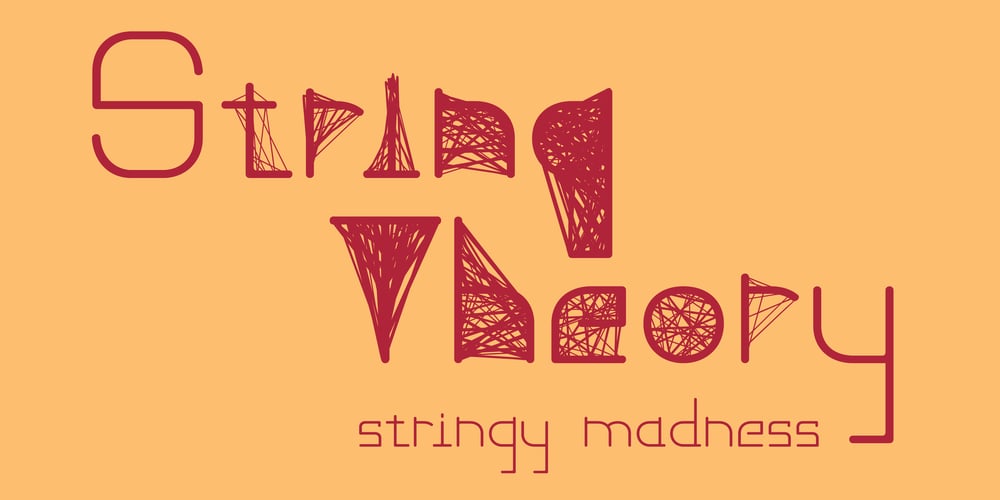
String Theory Font Family was designed by Monica Maccaux and published by Ampersand Type Foundry. String Theory contains 10 styles and family package options. String Theory has been a 10+ year project in the making which originated from a type workshop in Graduate School at Otis College of Art & Design. The workshop was hosted by Dutch designer Hansje Van Halem, and we were tasked to play with string to create letterforms. Thus String Theory was born, and slowly migrated from yarn, to an illustrator file, to what it is today as a type family. Each glyph has it’s own custom string set up, along with each weight. Experimental in nature, edgy, with subliminal angst and grittiness.